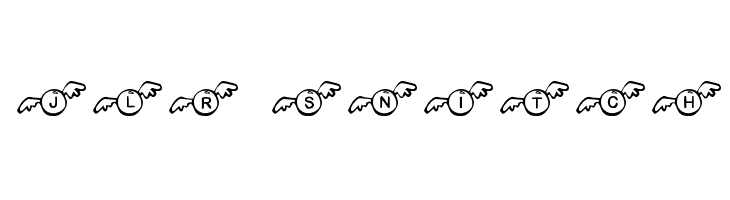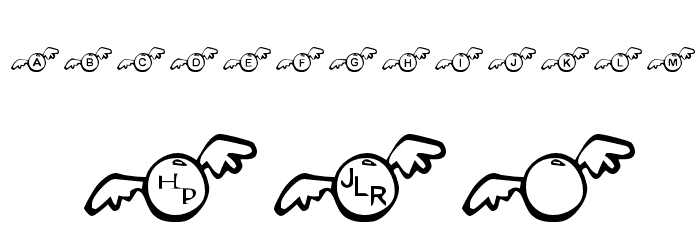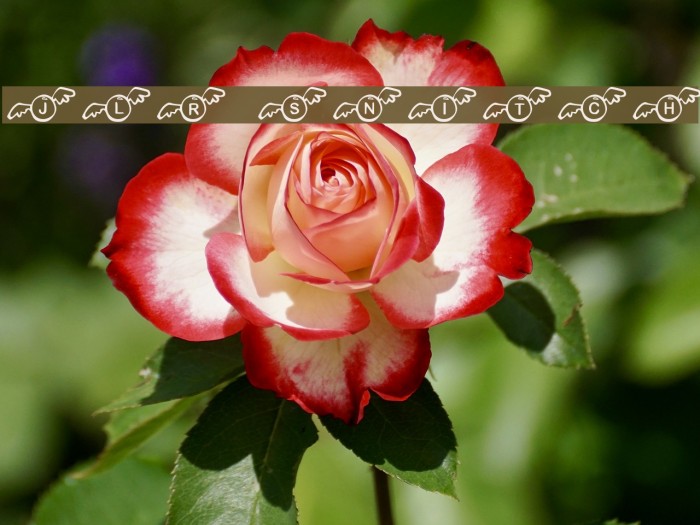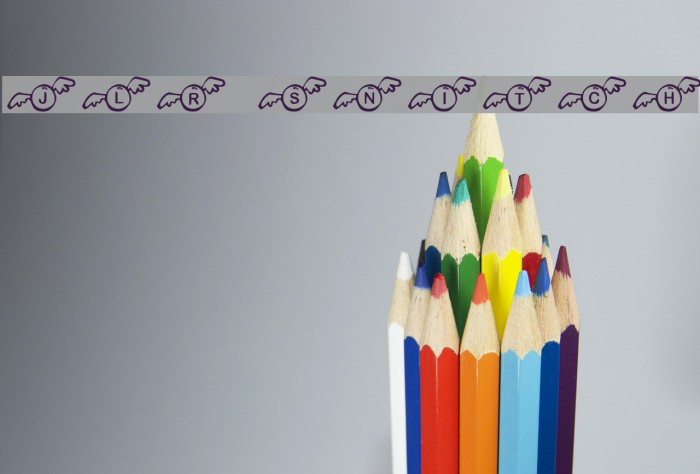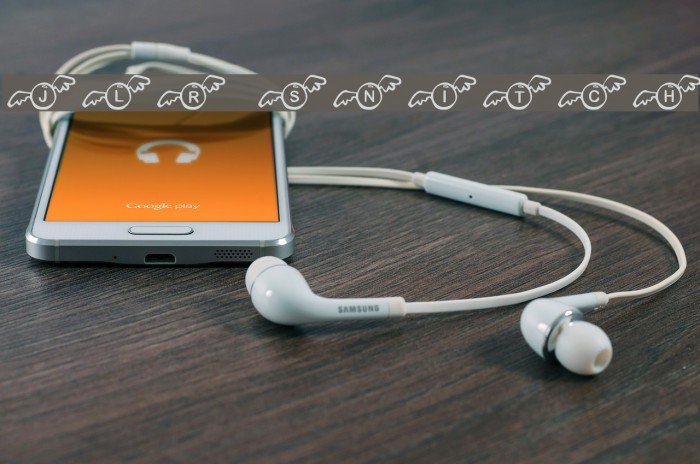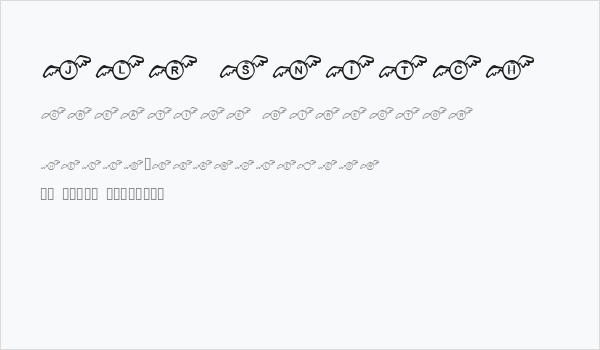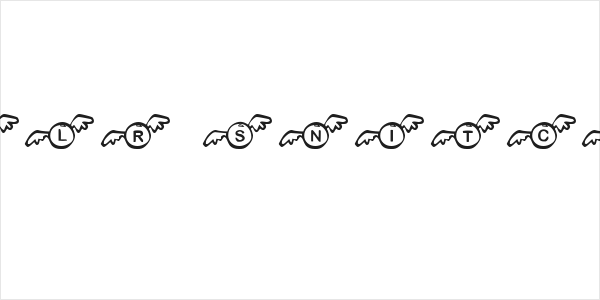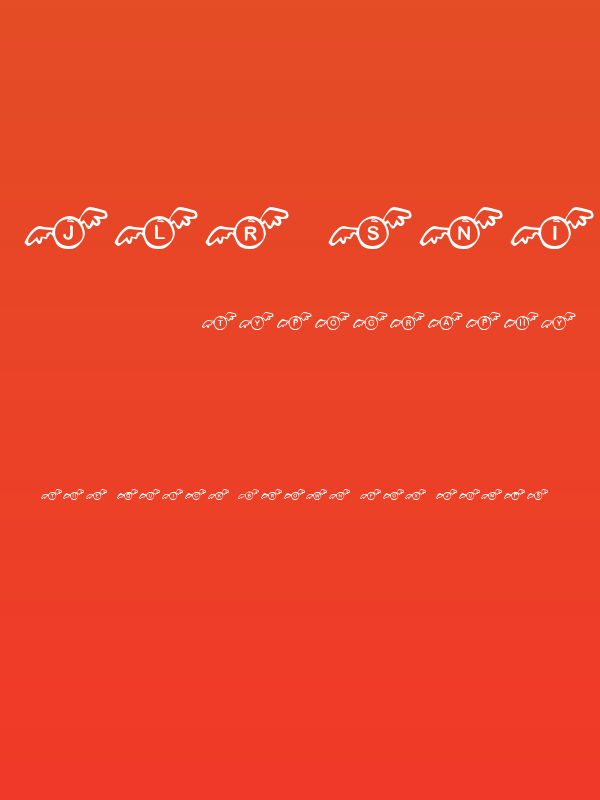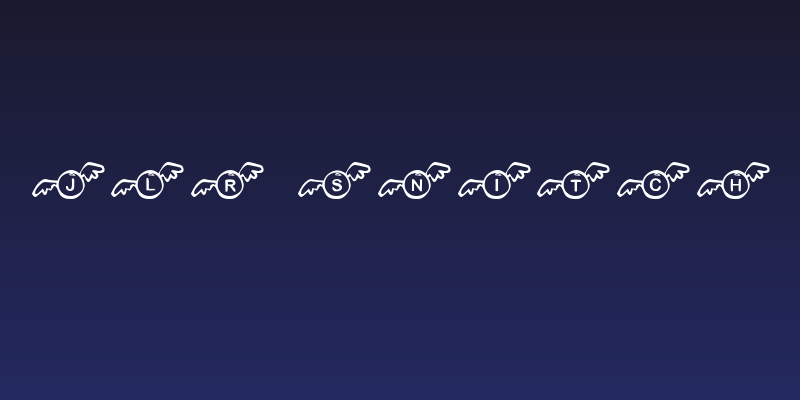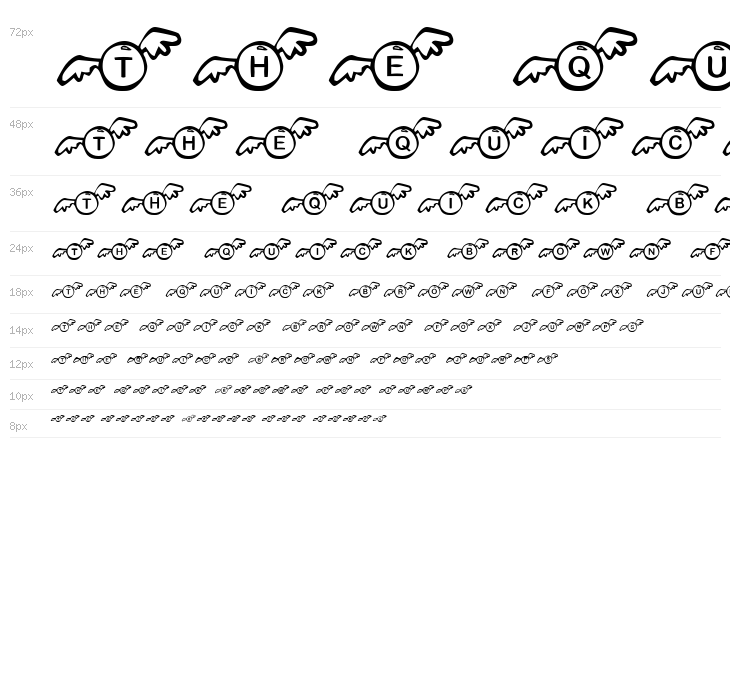
JLR Snitch Font
JLR Snitch Description
This whimsical and playful font features each character enclosed within a circular shape, adorned with small wings on either side, reminiscent of a magical flying object. The letters are bold and clear, making them easily readable despite the decorative elements. The style is unique and imaginative, perfect for capturing attention and adding a touch of fantasy to any design. The font includes both uppercase and lowercase letters, as well as numbers and a selection of special characters, all maintaining the same enchanting theme.
| Proposed Projects | Ideal for fantasy-themed projects, children's books, magical event invitations, or any design requiring a touch of whimsy and imagination. |